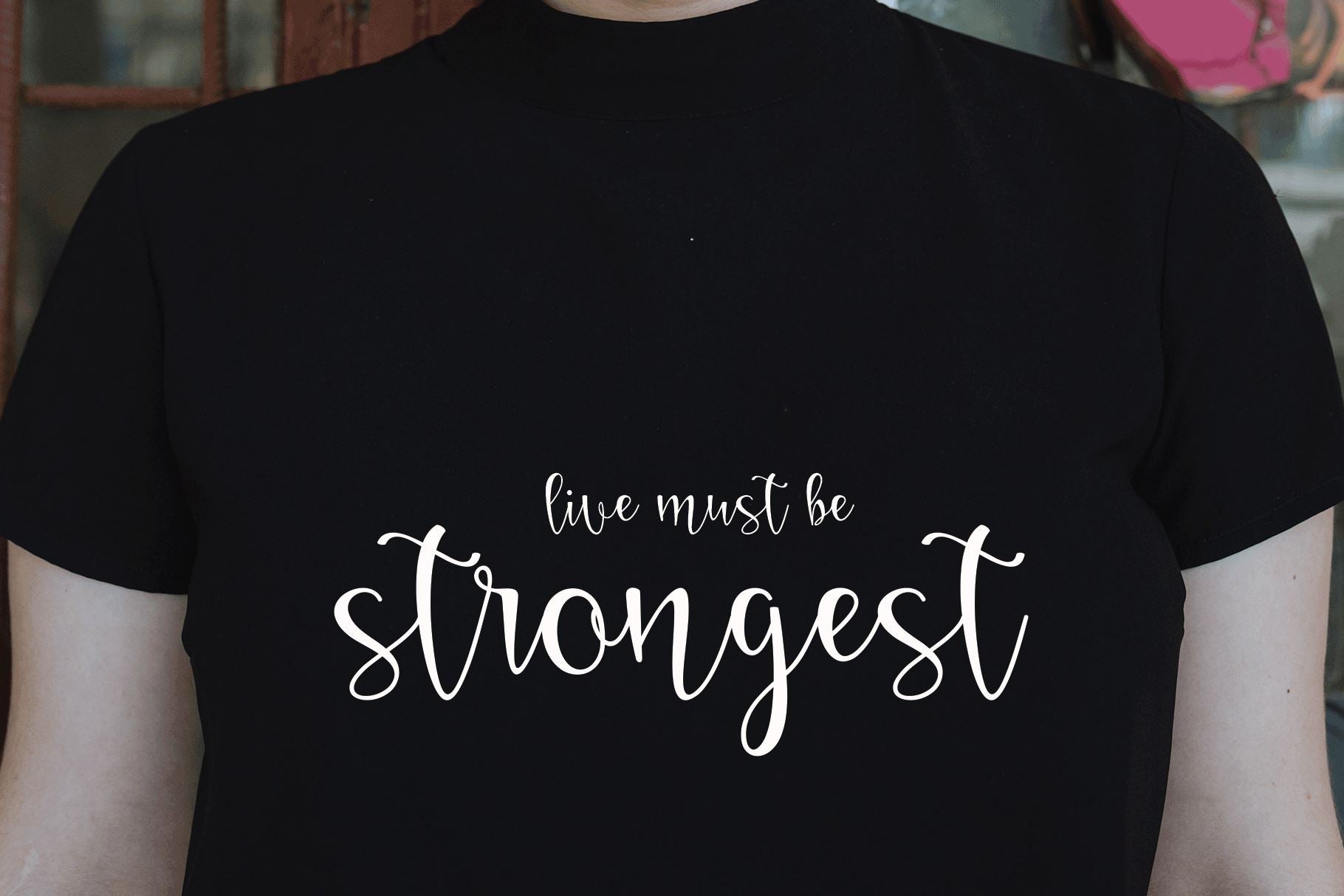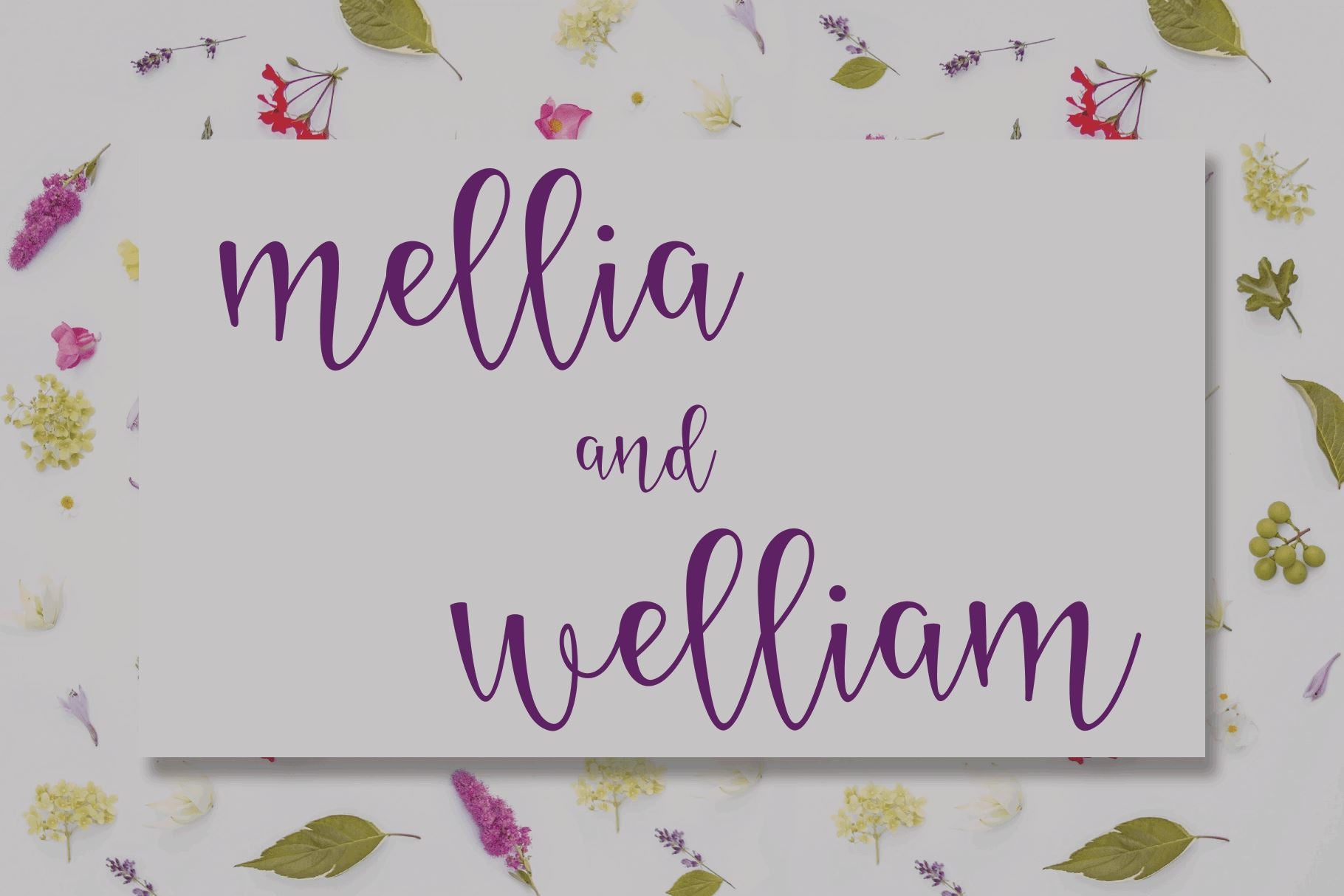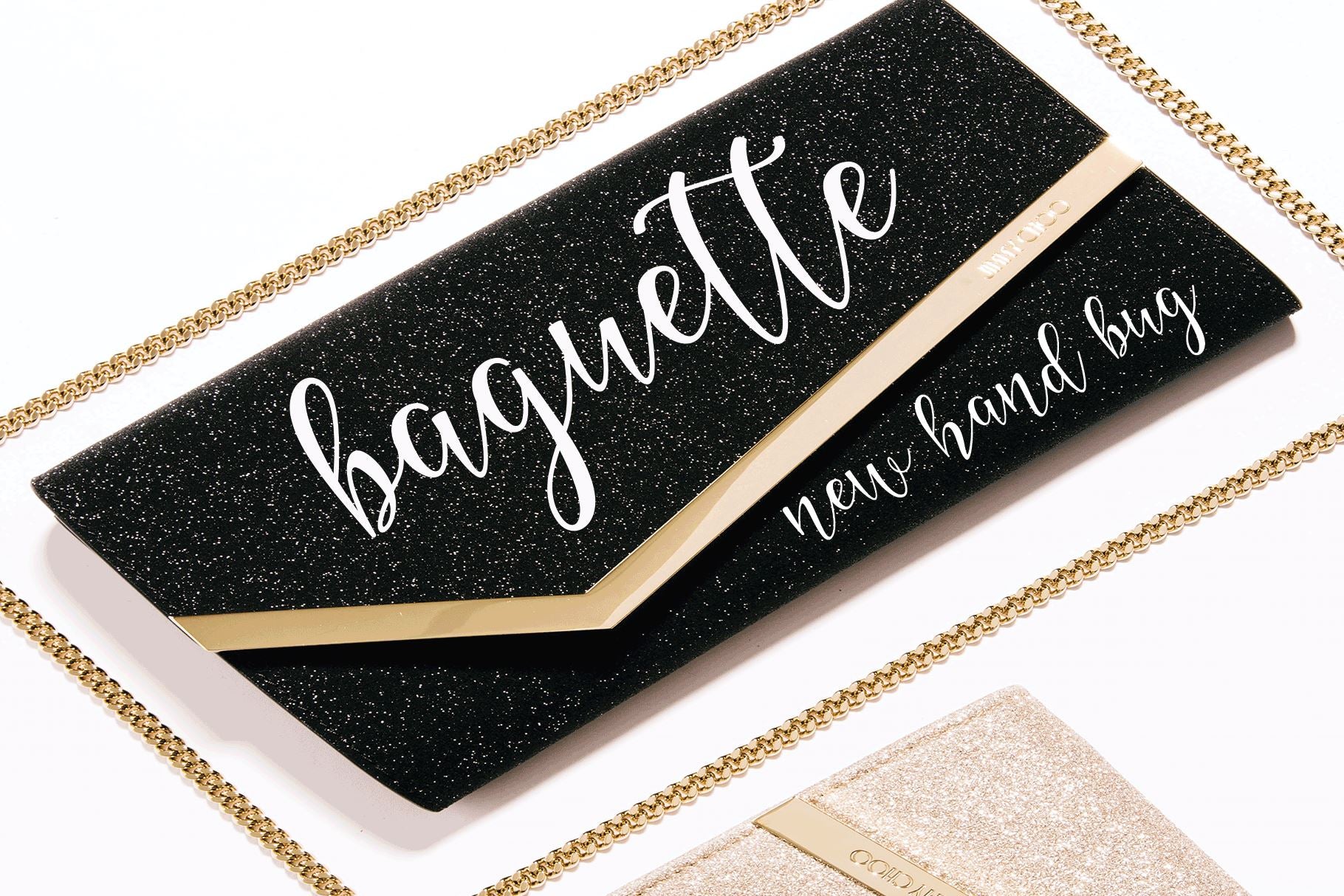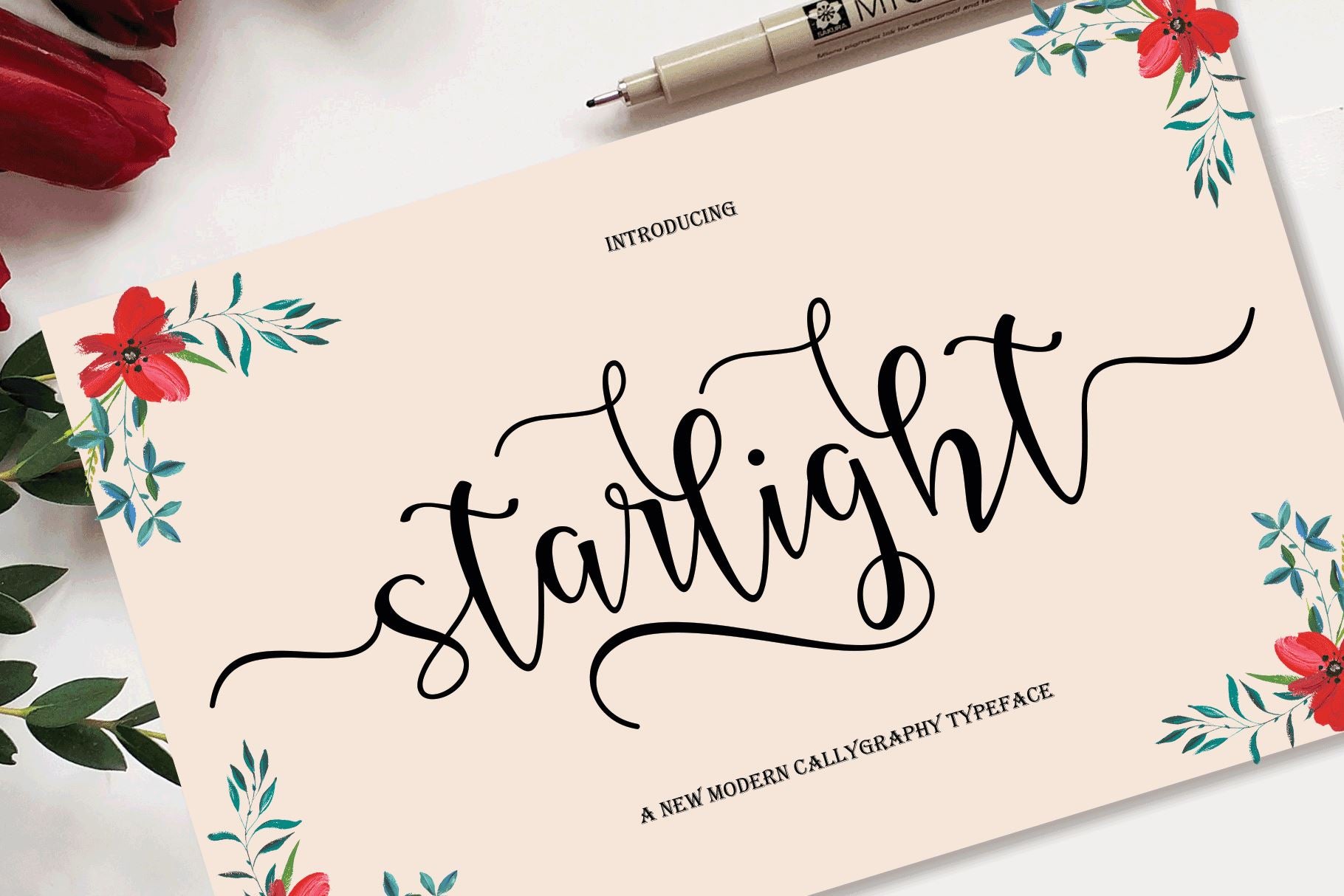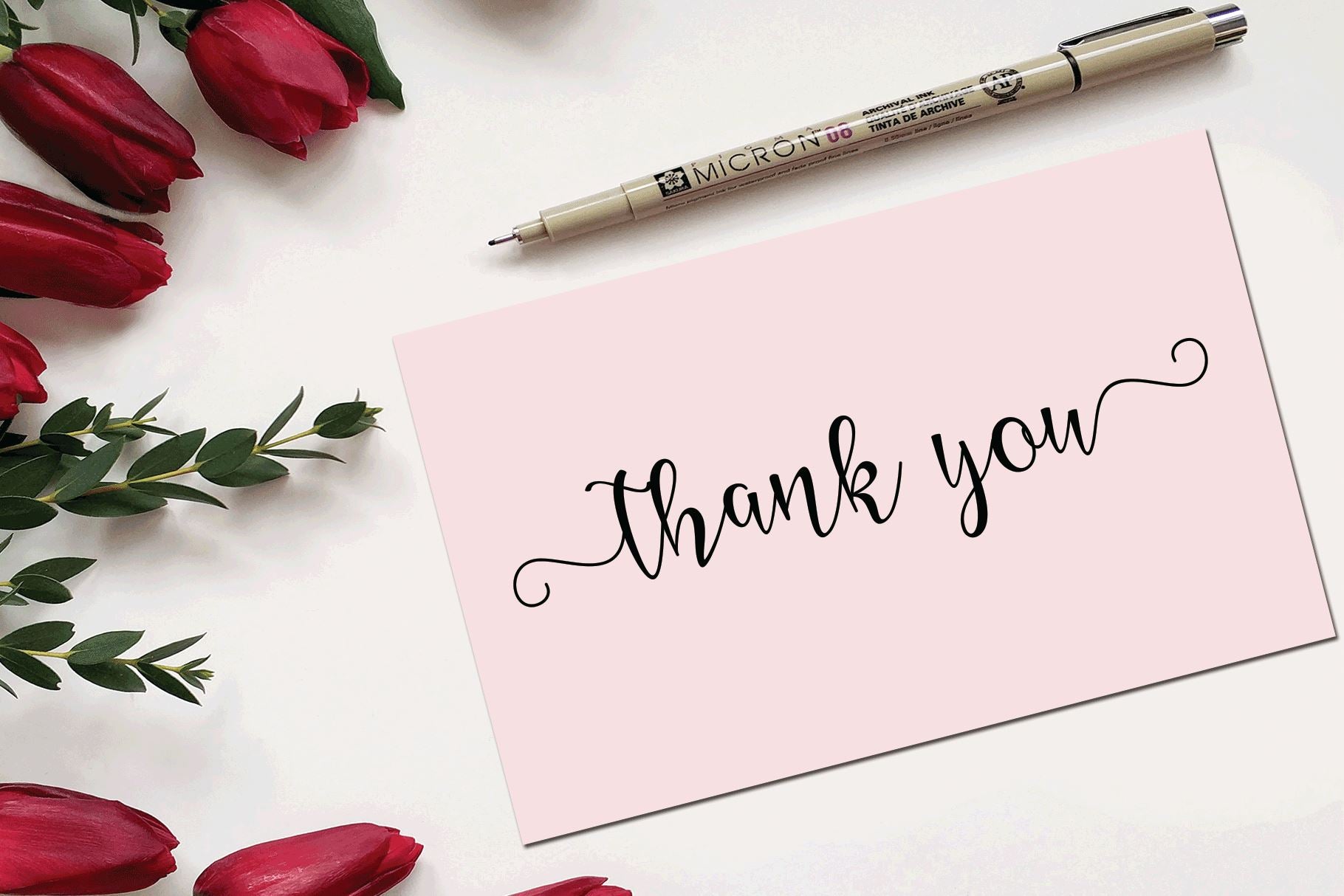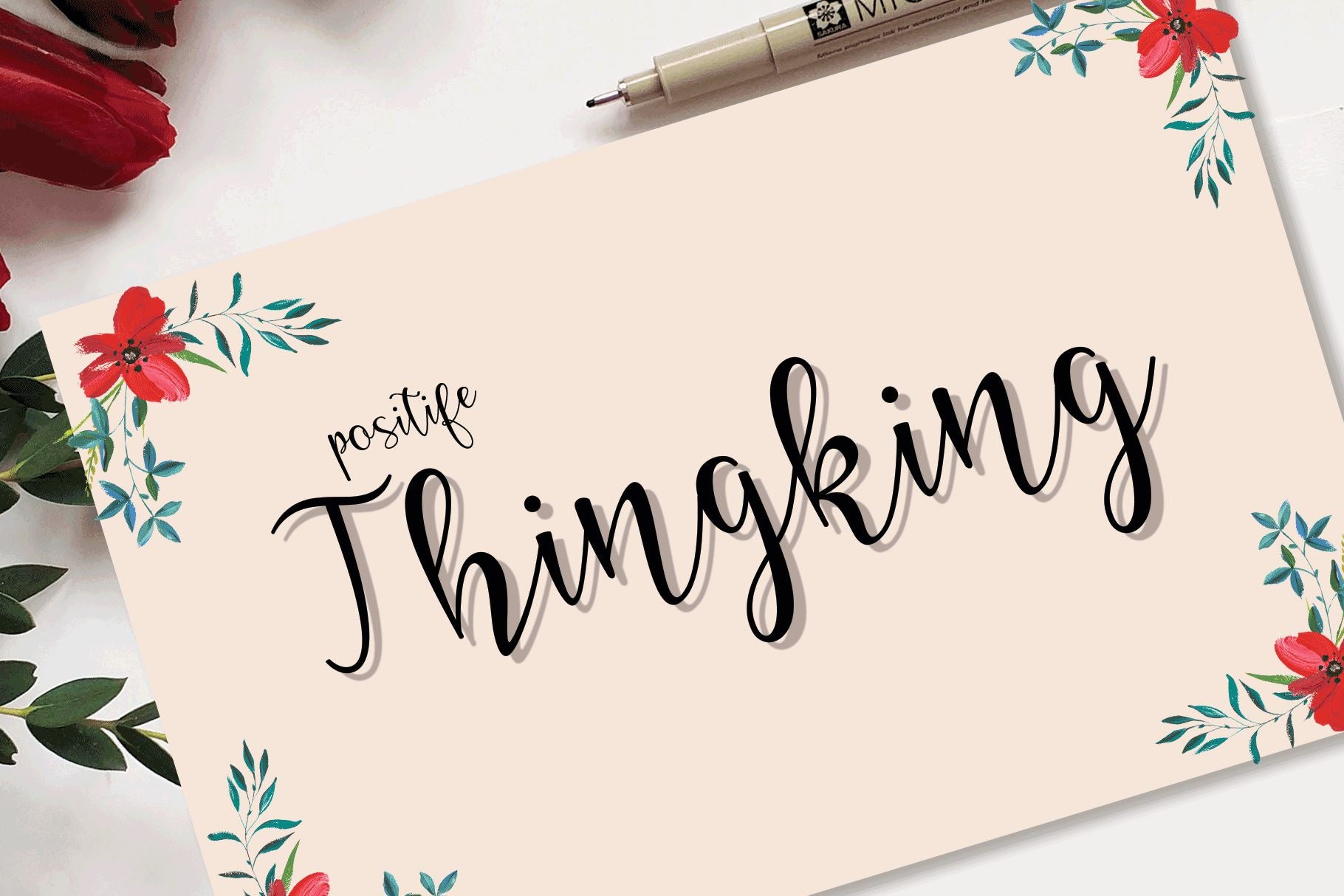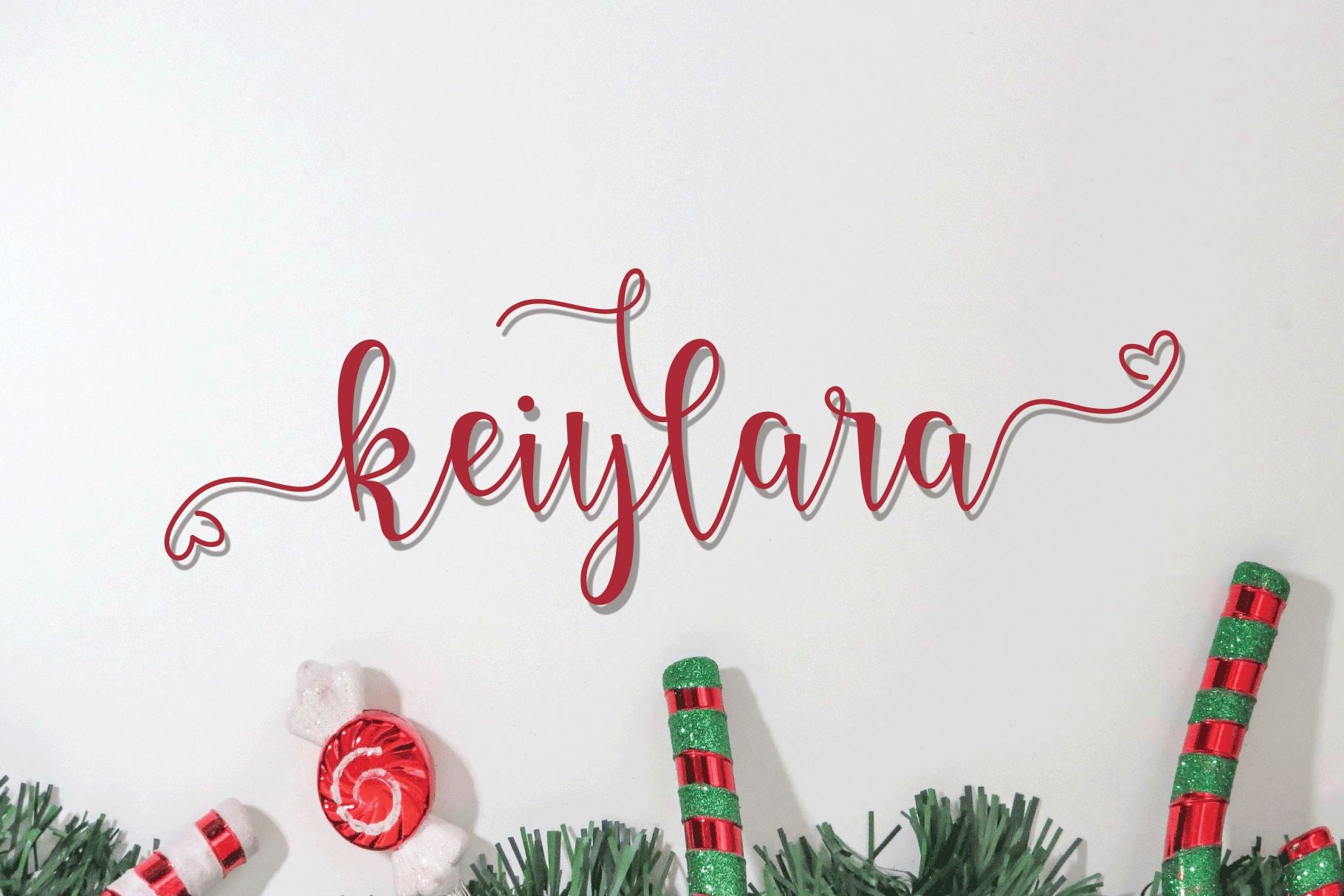
Starlight Script
About Starlight Script
starlight modern Calligraphy. This font was designed by handwriting, and it has a modern and unique forms of calligraphy, the writing style is very natural. The Features of this fonts is; Standart ligatures Stylistic Alternates Contextual Alternates Stylistic sets File font starlight Include; starlight OTF starlight TTF starlight font Web starlight PUA Unicode (Private Use Areas) Programs that support in this font is a Photo Shop, Adobe Illustrator, Adobe Indesign, Corel Draw and Microsoft Office. Can be used for various purposes.such as headings, logos, wedding invitation, t-shirt, letterhead, signage, lable, news, posters, badges etc. To enable the OpenType Stylistic alternates, you need a program that supports OpenType features such as Adobe Illustrator CS, Adobe Indesign & CorelDraw X6-X7.